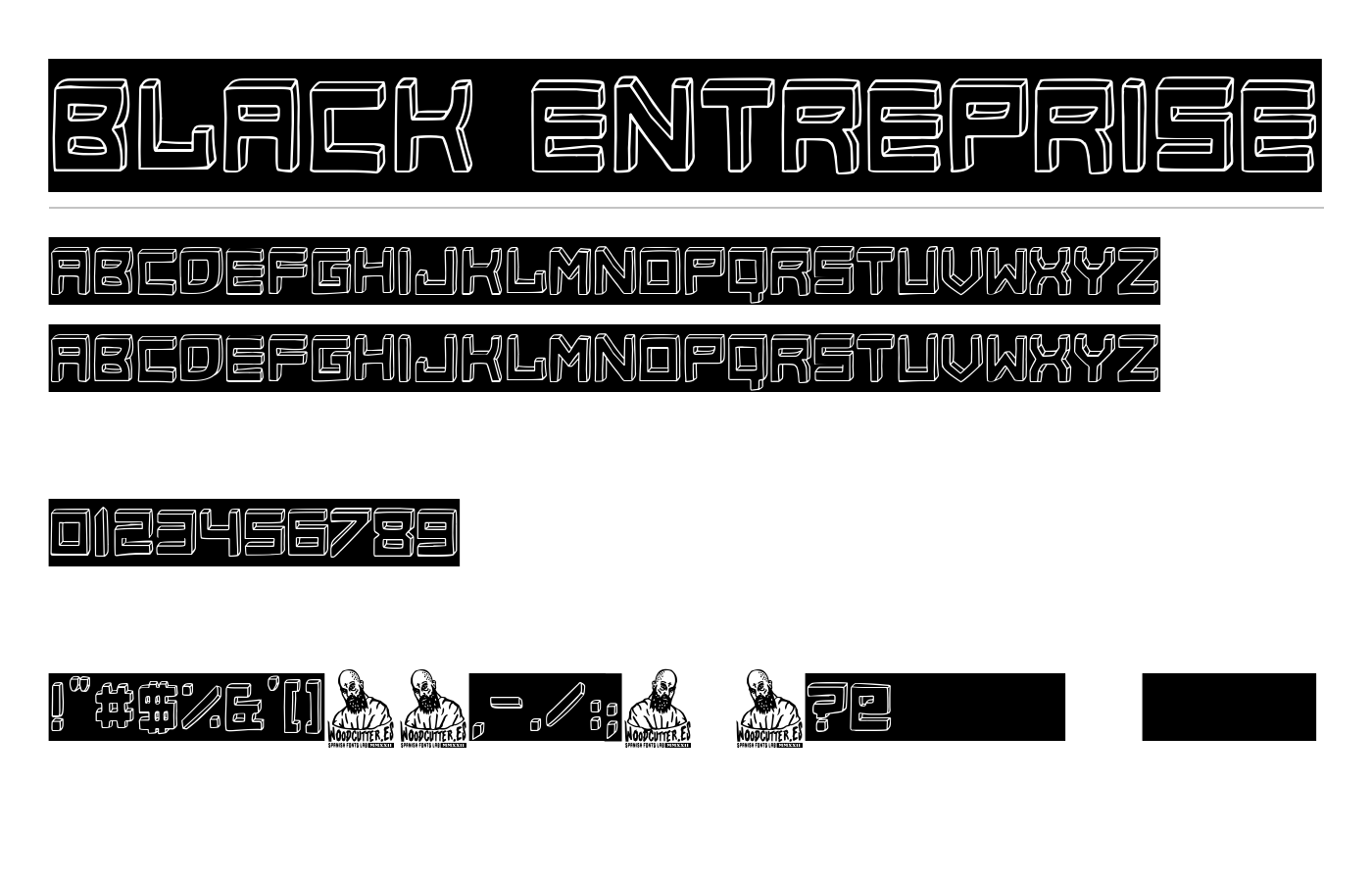
Black Entreprise is a bold, geometric sans serif font with a distinct outlined style that gives it a modern and edgy look. Its strong, squared letterforms and tight spacing create a compact, industrial feel, making it ideal for striking headlines, logos, and branding that require a contemporary, urban vibe. This font works best in designs that want to convey strength, innovation, and a forward-thinking attitude.
Black Entreprise Font
About Black Entreprise Font